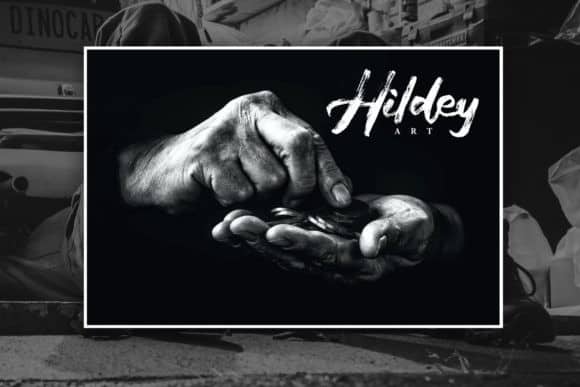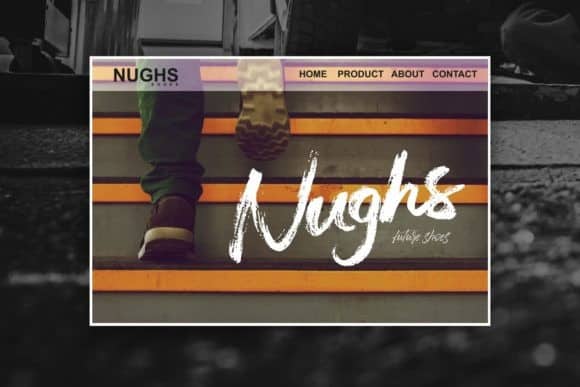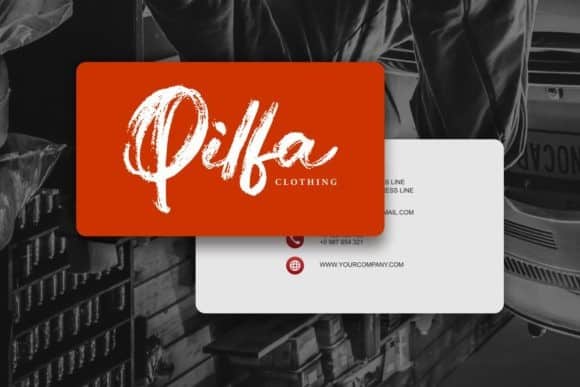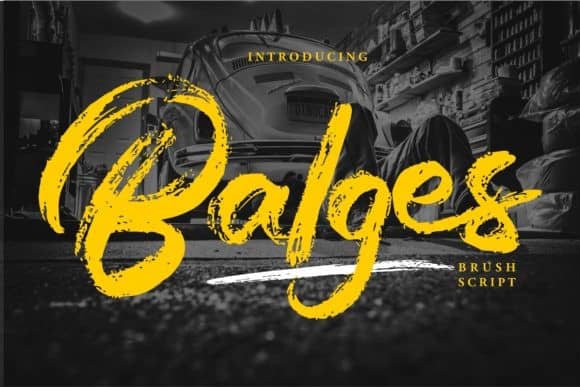
Balges Brush Font
Balges Brush Font is a brand new handwritten font. Made from font designer named Vunira. It’s an original and powerful script font that’s great for turning any design project into a standout. Get inspired by its raw energy.
Balges Brush Font is perfectly suited for stationery, logos, t-shirt, paper, print design, website header, photo frame, flyer, music cover, poster, image slider, and much more.